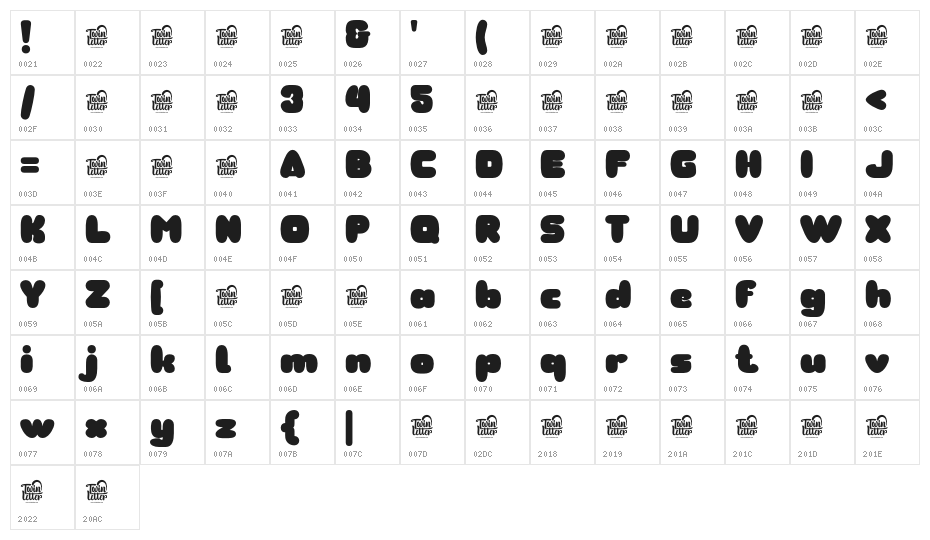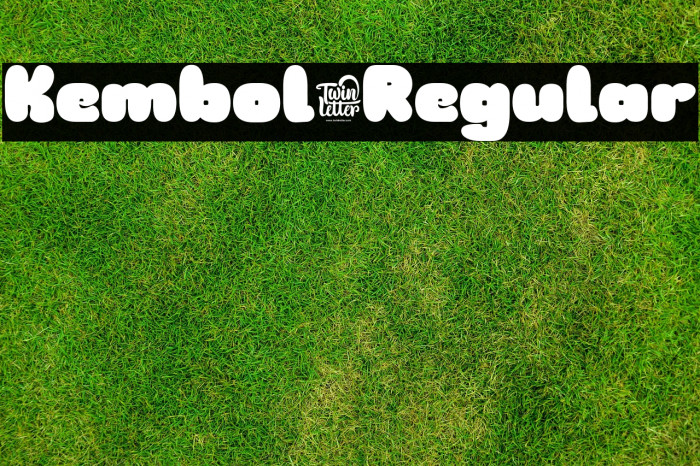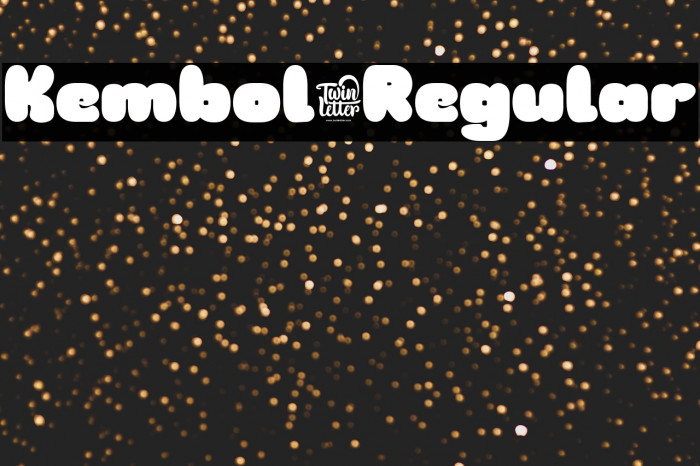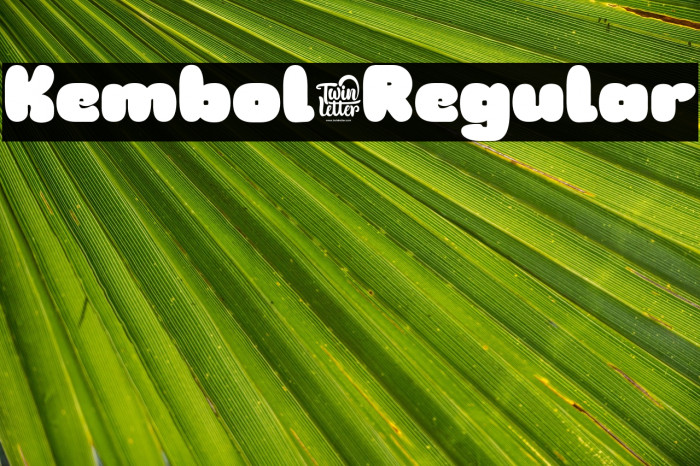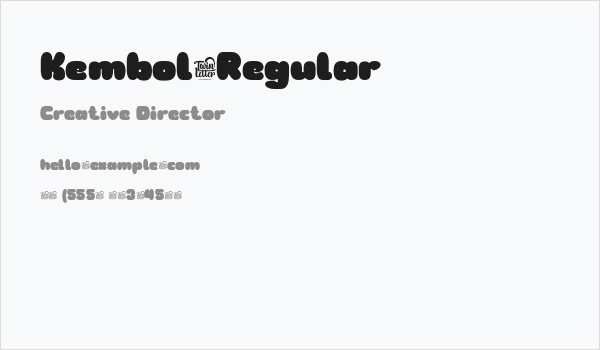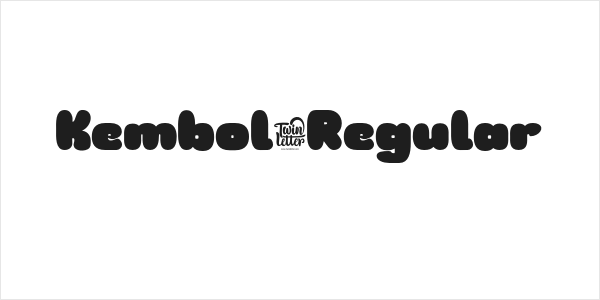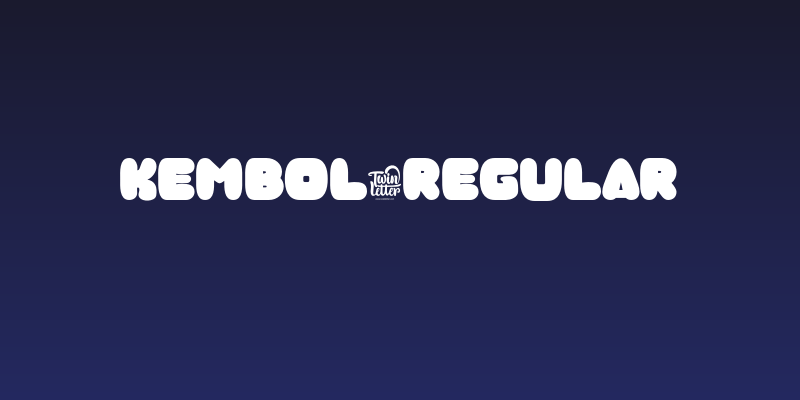
Kembol-Regular Font
Kembol-Regular Description
This font features bold, rounded characters with a playful and modern aesthetic. The letters are thick and uniform, creating a strong visual impact. The rounded edges give it a friendly and approachable feel, making it suitable for a variety of creative projects. The font maintains consistent stroke weight throughout, ensuring readability while adding a touch of whimsy. Its unique style is ideal for designs that aim to stand out and convey a sense of fun and creativity.
| Proposed Projects | Ideal for children's books, playful branding, posters, and creative advertising. |